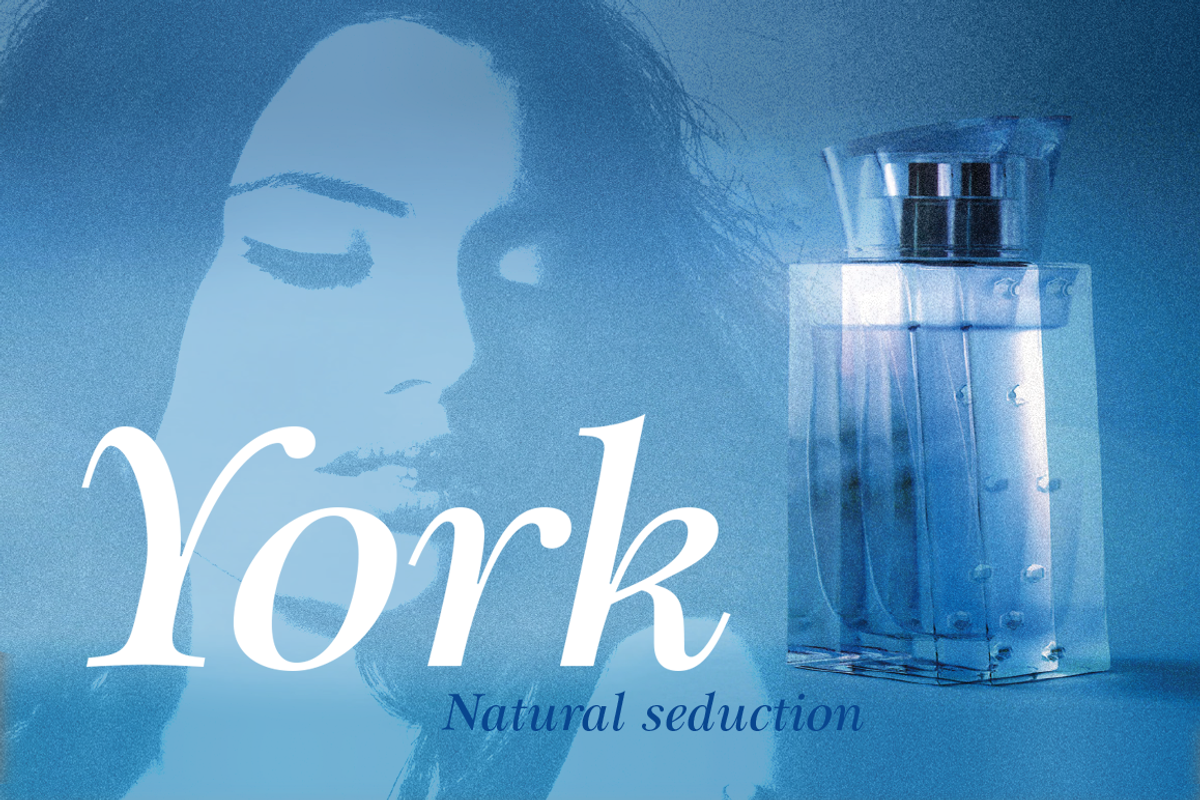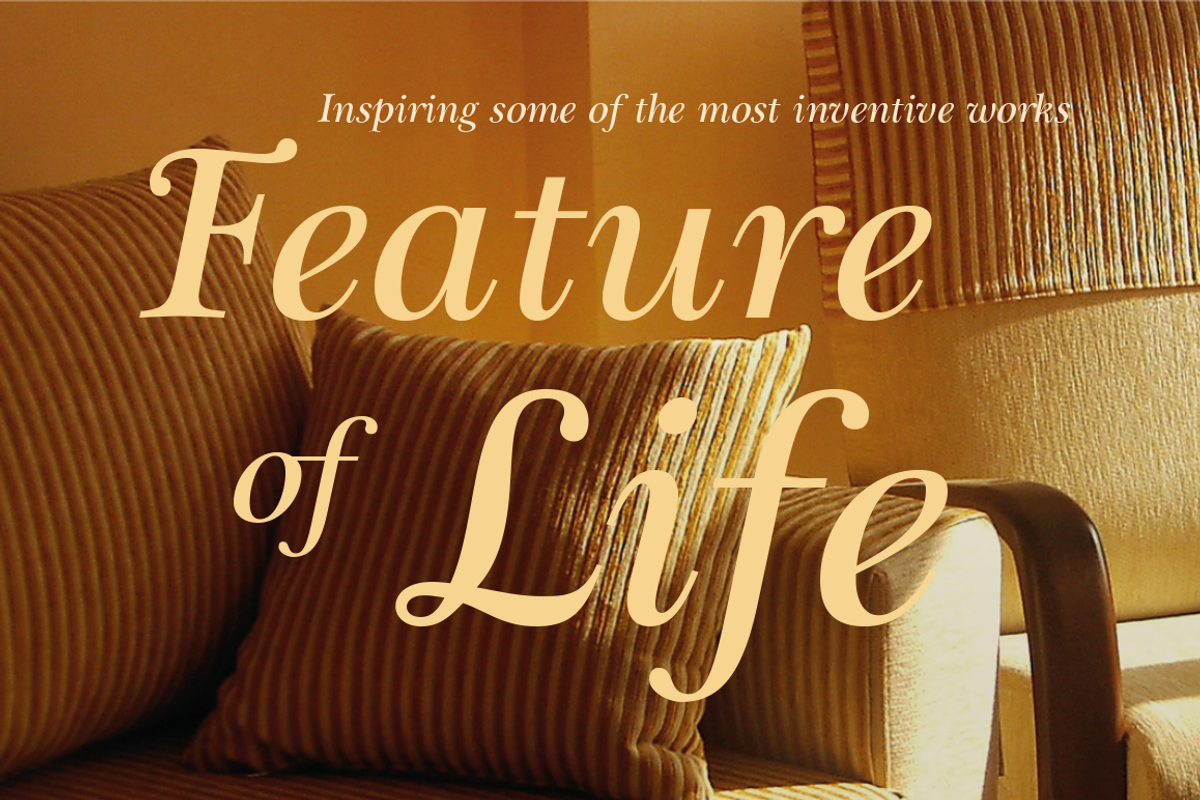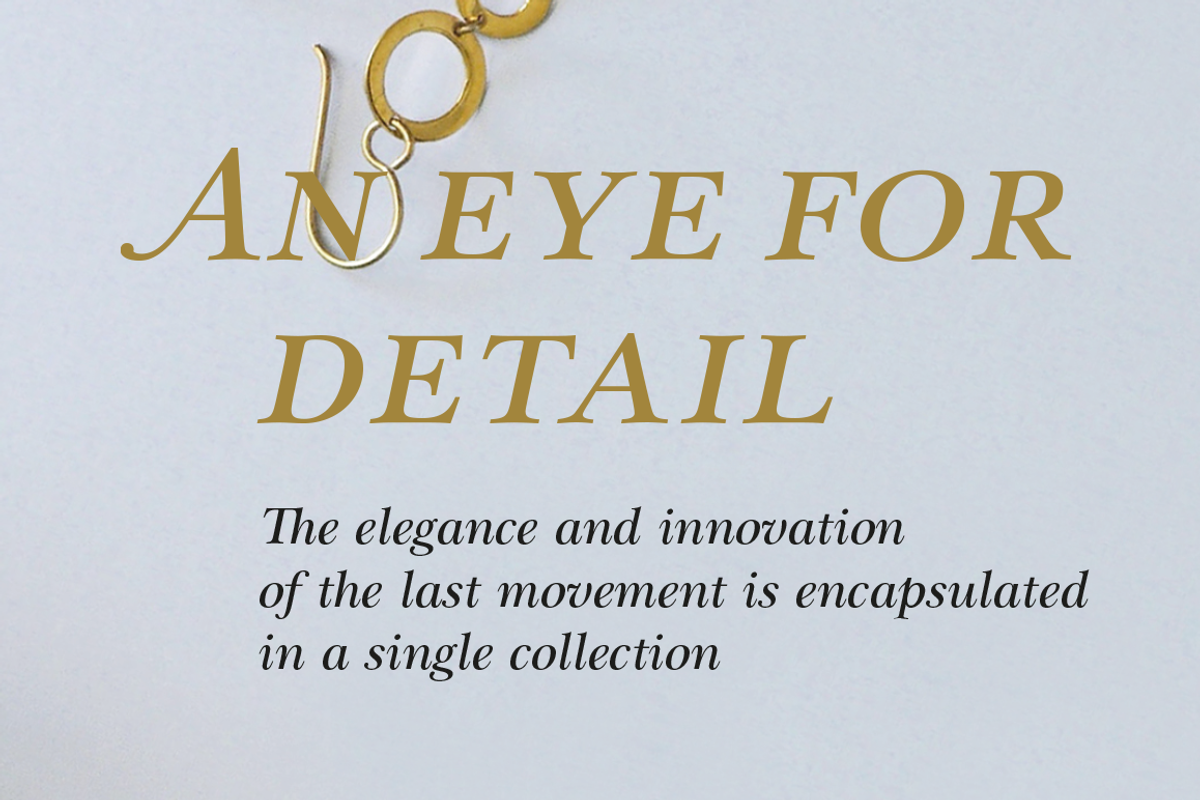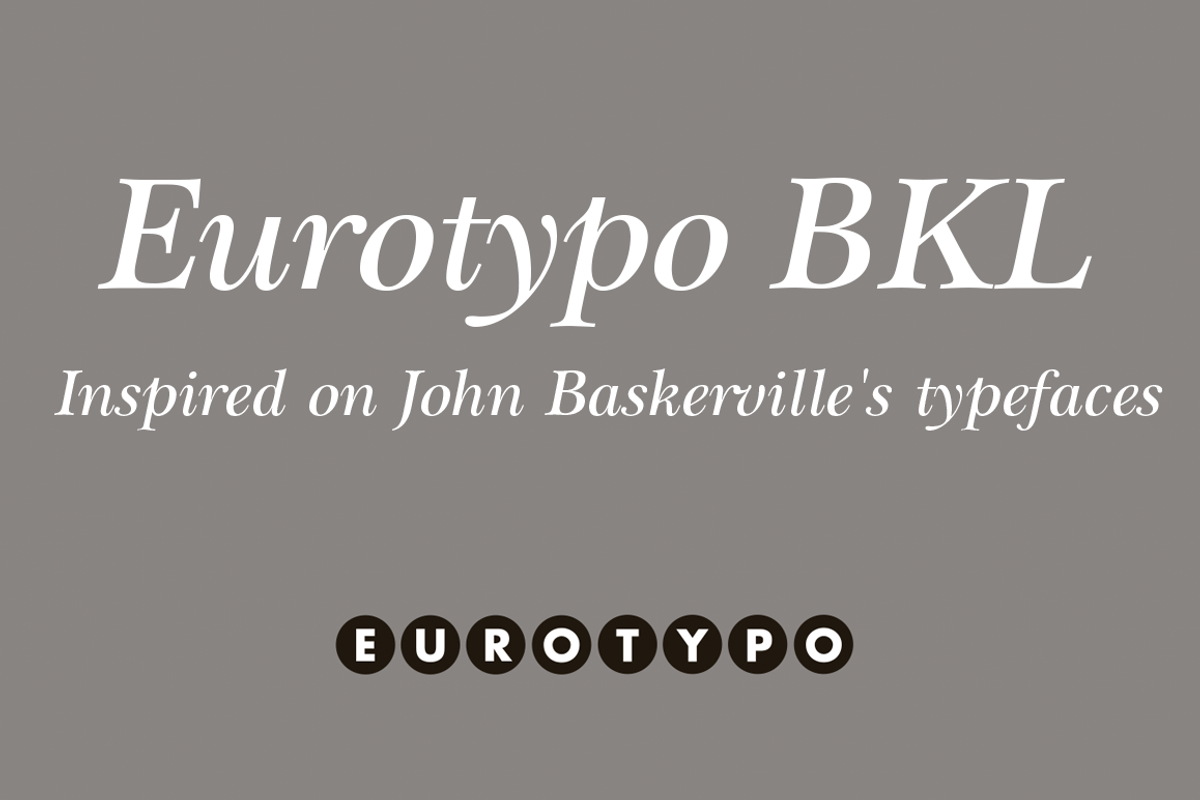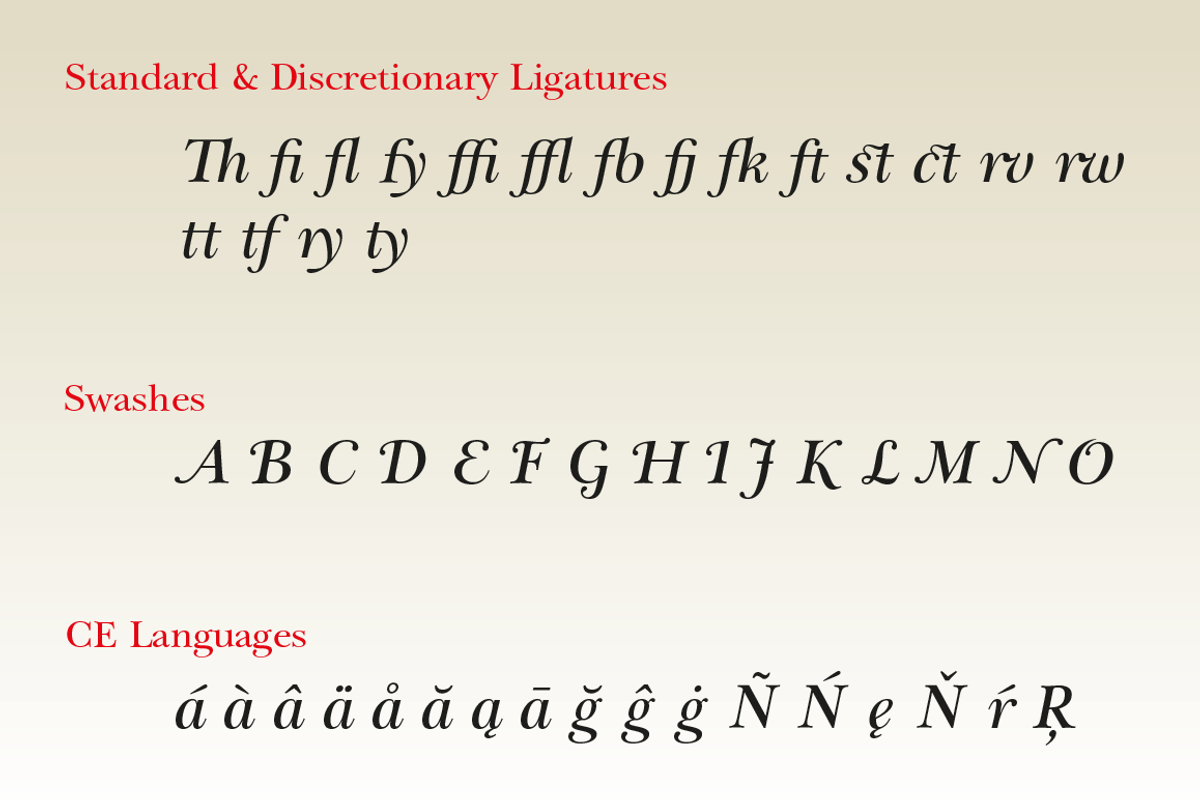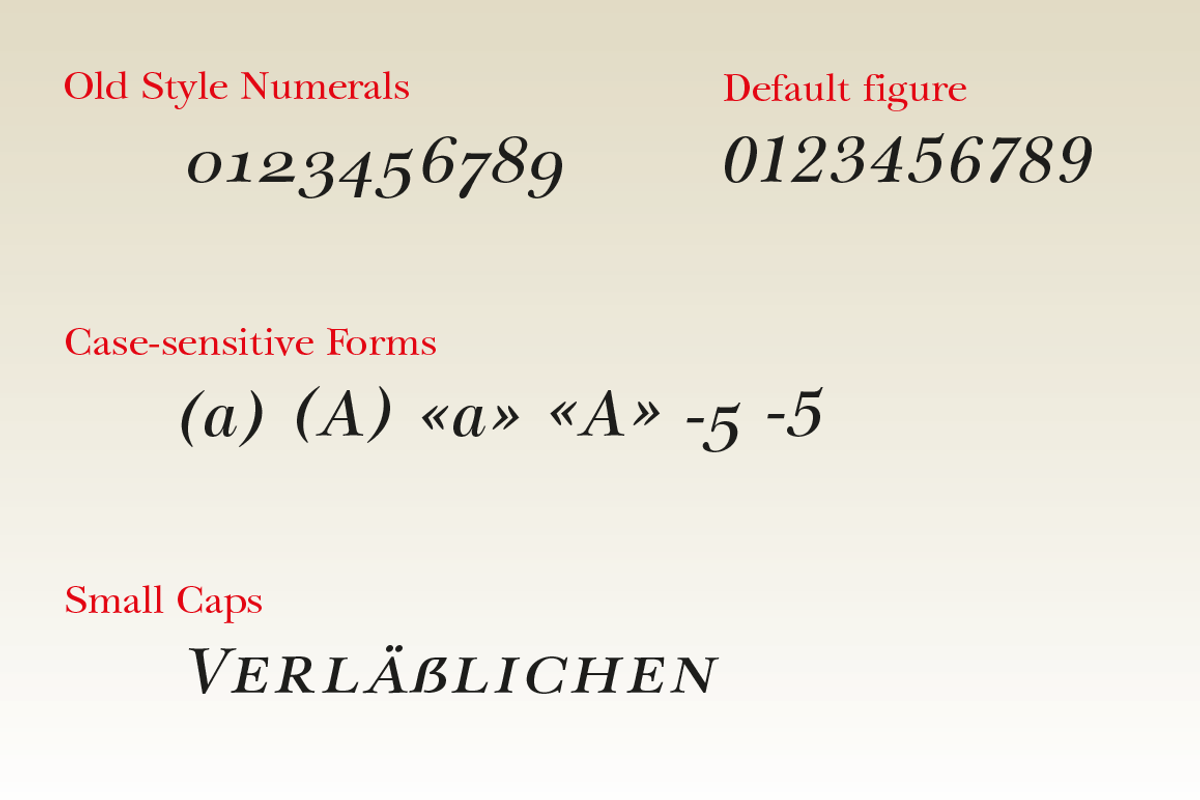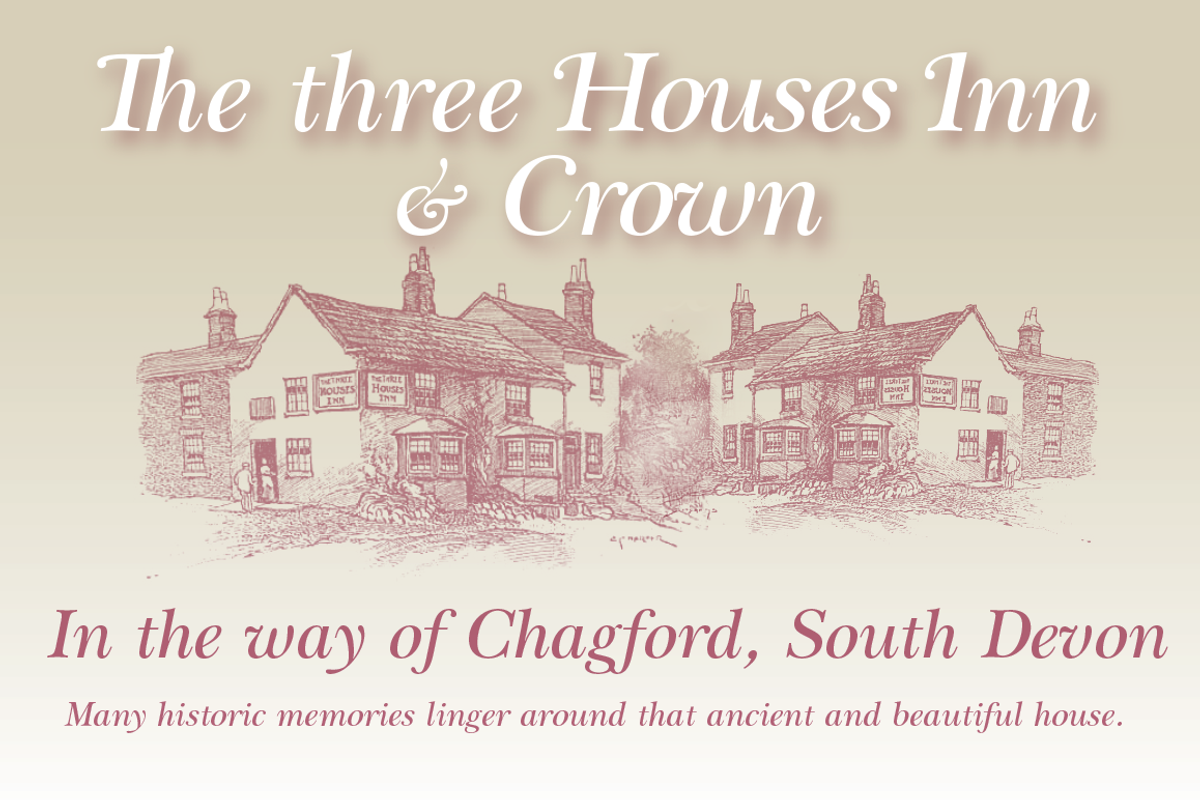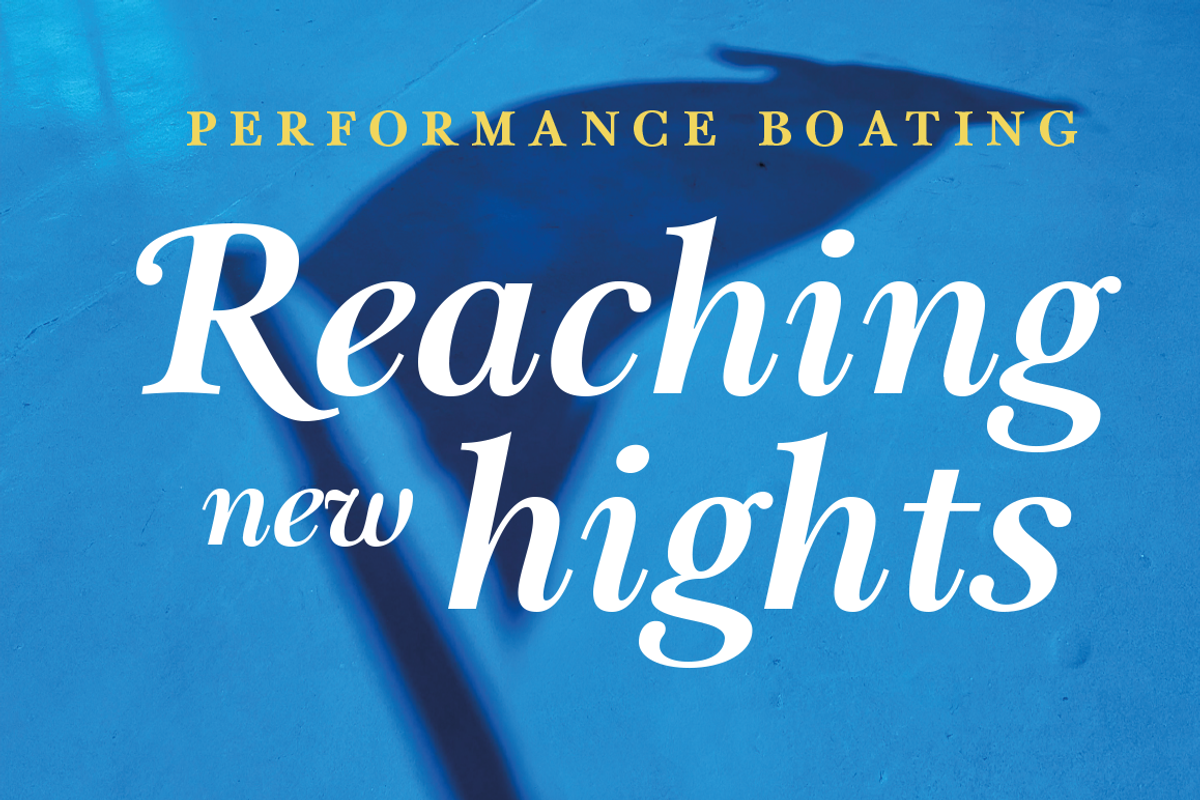
Eurotypo BKL Italic
Designer: Olcar Alcaide Publisher: Eurotypo Year of issue: 2020
Eurotypo BKL is a font inspired in on one of the most beautiful British Typography ever done. This version of Baskerville tries to reflect the taste of his fine style, compatible with the bluntness of the digital present. As many other designers and foundries, our intention has been to represent the atmosphere of Baskerville's style, than simply relive the shapes of its letters. Actually, capitals fits almost to a square proportions, lowercases are more open, ascenders and descenders are shorter, offering more space for enlarge the "x" high. The beauty of his letterforms can enrich headlines; this font can also be used as body text for its good legibility and accurate kerning.
John Baskerville (1706-1775) was born 1706 in Wolverley, England. He was a great typographer and printer who published a remarkable edition of Virgil in 1757. His typefaces were greatly admired by Benjamin Franklin; He also has improved and developed many innovations in printing, paper and ink production. Baskerville’s typefaces are regarded as transitional types that represents the link between Old Roman Style and Modern Roman typography.